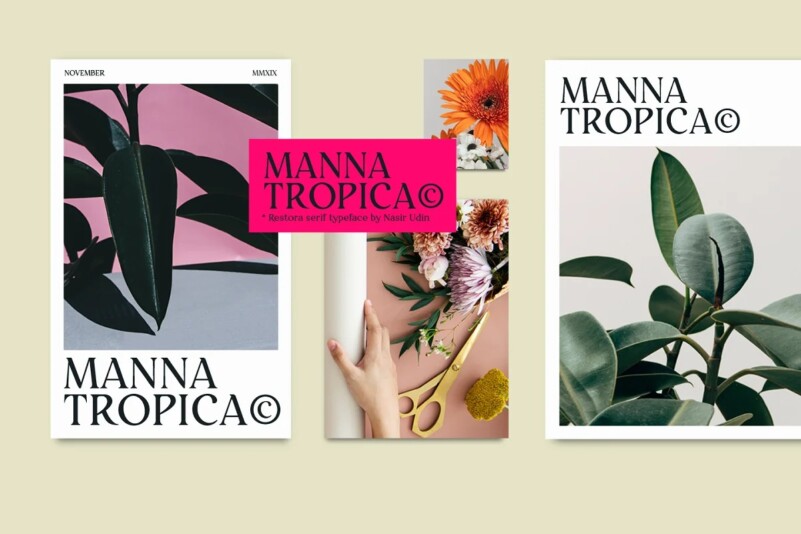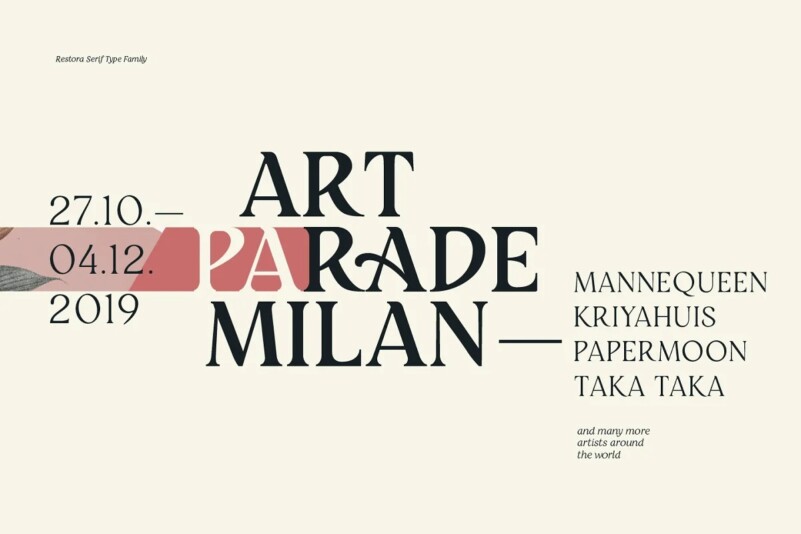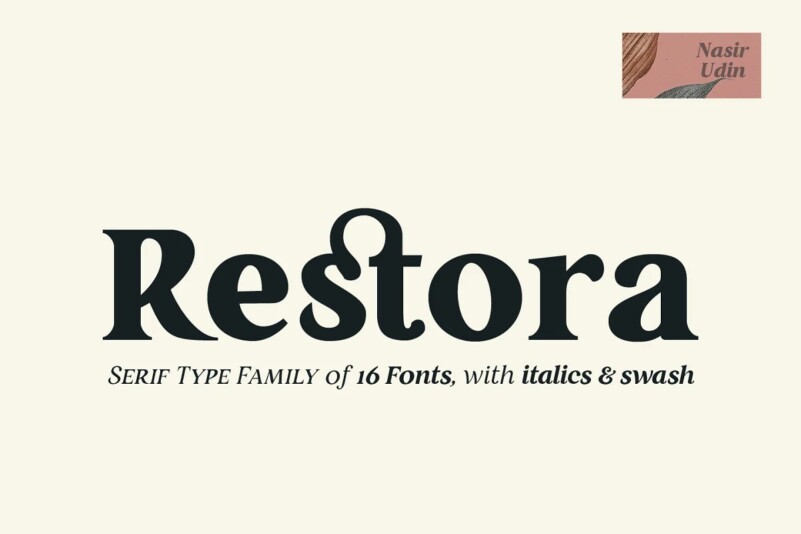
Restora Font
Restora is a mix of old-style roman serif styles. The combination of beautiful letterforms and old style serif makes Restora a versatile type family that can be used in many different themes of design projects.
It comes in eight weights from thin to black with matching italics. Its mixture of weights provide a wide range of styles that will help you find the best vibe for your projects, from body text to big headlines, from classic style to modern and bold style.
It is well suited for book covers, editorial, branding, advertising and more. Its OpenType features provide a number of swash, beautiful ligatures and stylistic alternates that give your typography a unique look.